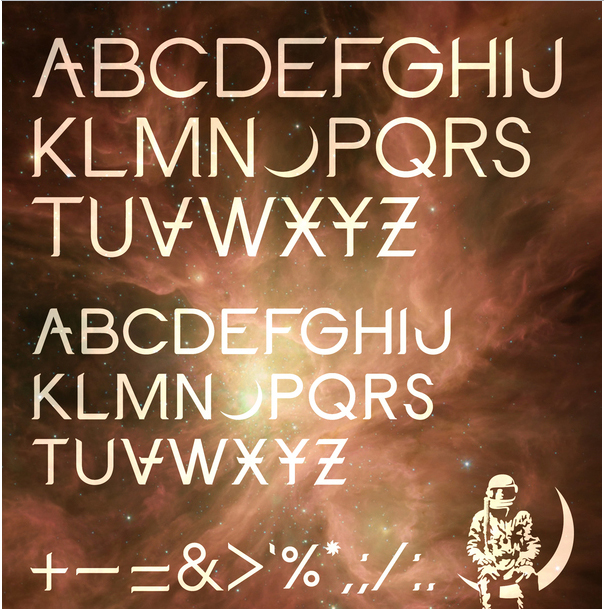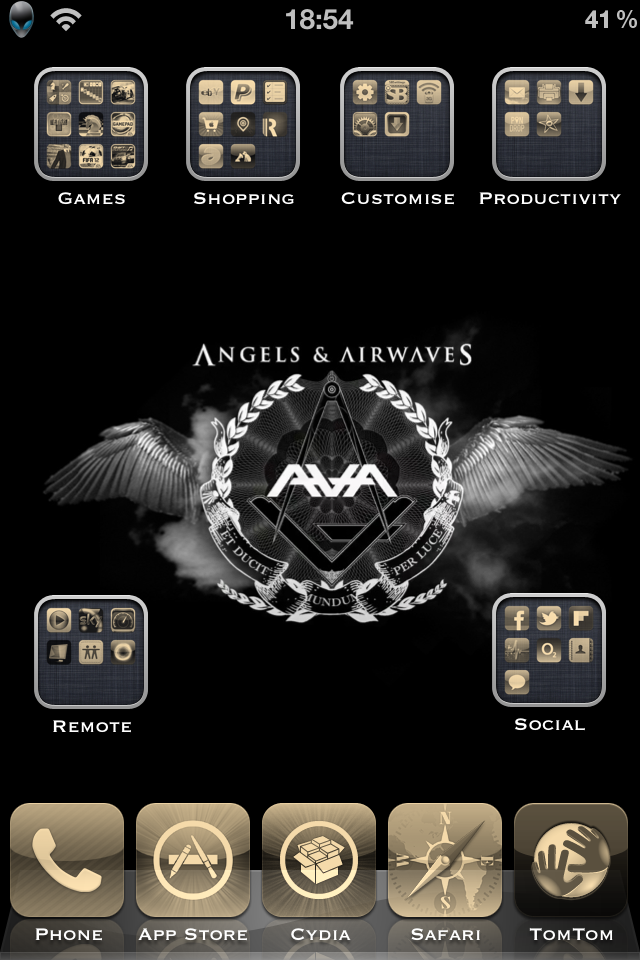
R RolledUp20s macrumors regular Original poster Feb 13, 2012 #1 looking at the 'Angels & Airwaves' wallpaper logo, the A is like an upside down V. using springtomise i found the Font you can see under the folders...its pretty close, but id like the actual AVA font. how could i get that? Attachments photo.PNG 419.7 KB · Views: 518
looking at the 'Angels & Airwaves' wallpaper logo, the A is like an upside down V. using springtomise i found the Font you can see under the folders...its pretty close, but id like the actual AVA font. how could i get that?
C Cynikal.Mindset macrumors 6502a Feb 13, 2012 #2 http://new.myfonts.com/fonts/adobe/trajan/ The "A" is customized though...not a standard character in the font set, well it is up its the "V" upside down
http://new.myfonts.com/fonts/adobe/trajan/ The "A" is customized though...not a standard character in the font set, well it is up its the "V" upside down
R RolledUp20s macrumors regular Original poster Feb 13, 2012 #3 i found this....how would you use this font now though? is it hard to add it? Attachments photo.JPG 389.3 KB · Views: 217